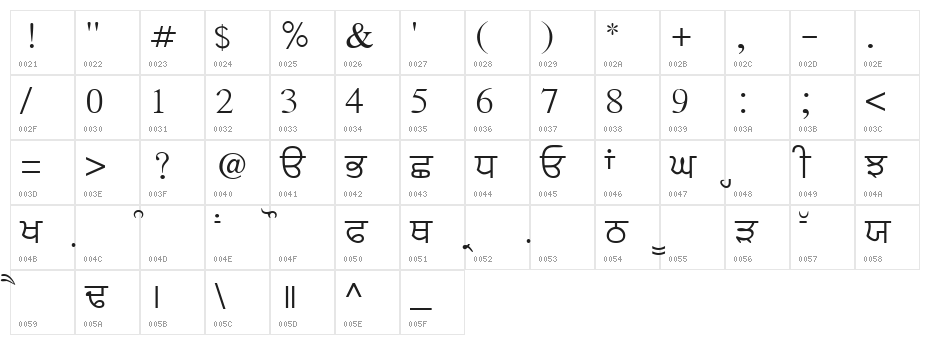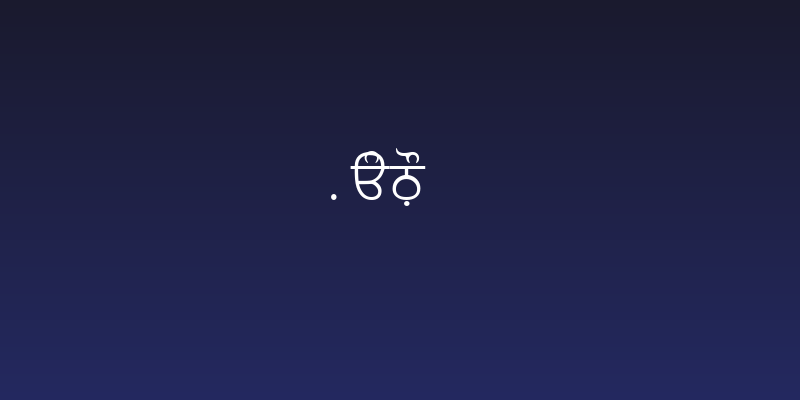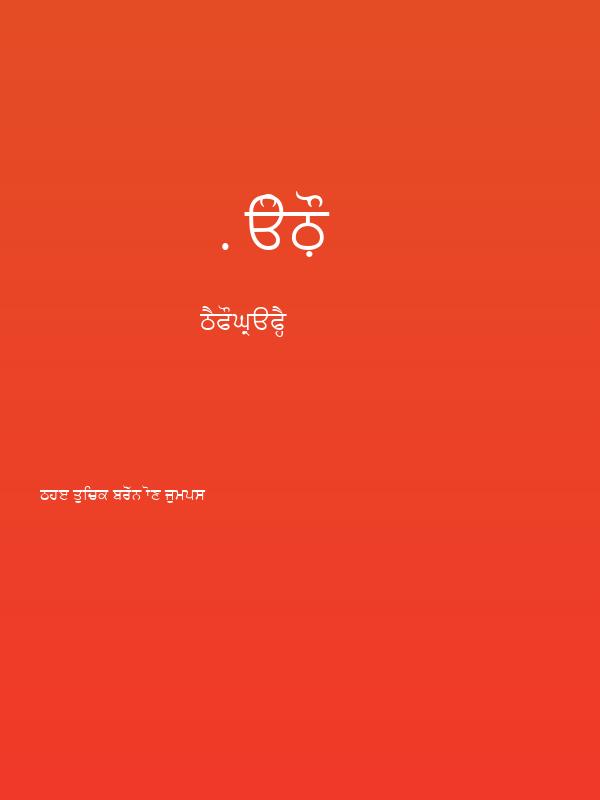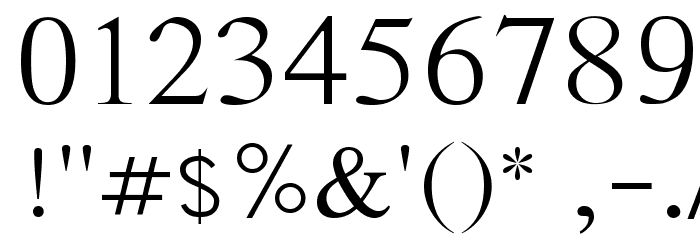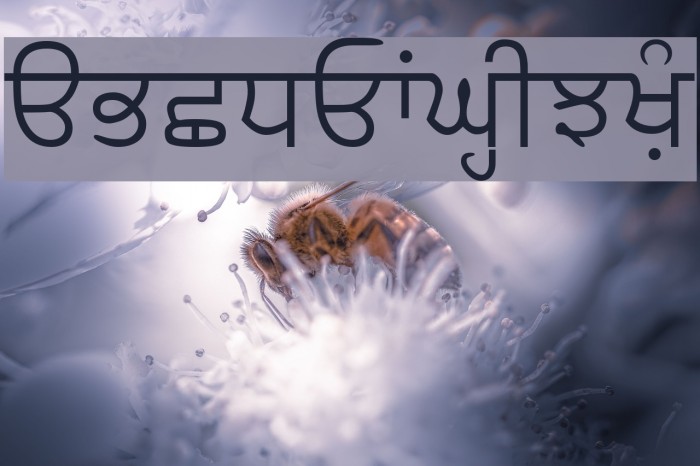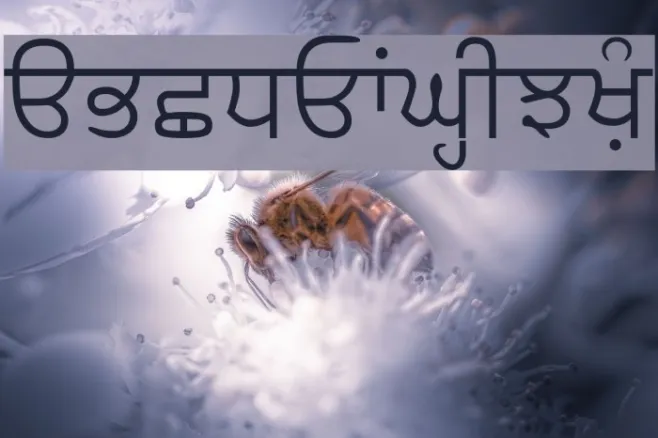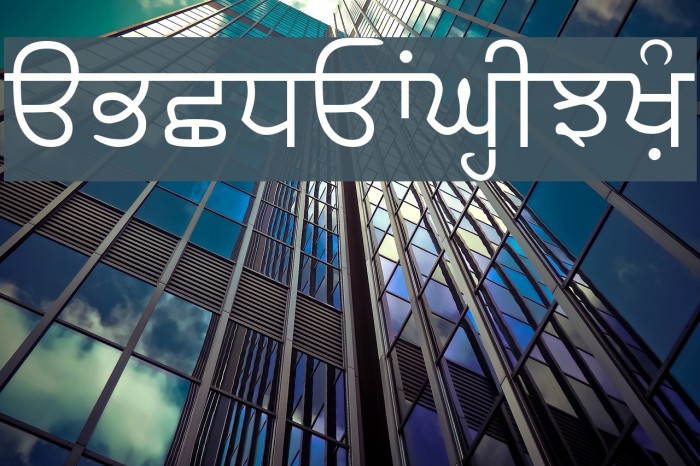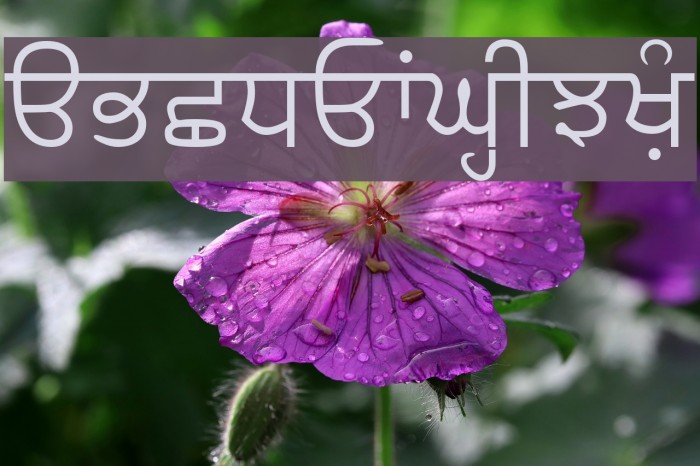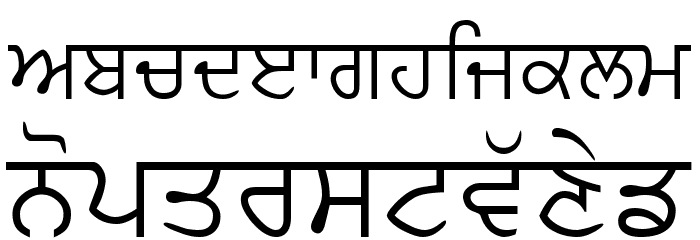
Samtol Font
Samtol Description
This font features a distinctive and elegant design, characterized by its clean and modern aesthetic. The characters are crafted with a balanced stroke weight, providing a harmonious blend of curves and straight lines. The numerals are clear and easily distinguishable, while the special characters are thoughtfully designed to complement the overall style. The font's structure is well-suited for both digital and print media, offering versatility across various applications. Its legibility and refined appearance make it an excellent choice for professional and creative projects alike.
| Use Case | Headlines, Body text, Logos |
| Proposed Projects | Ideal for branding, editorial design, digital interfaces, and print media. |